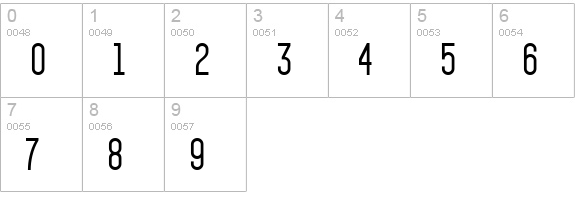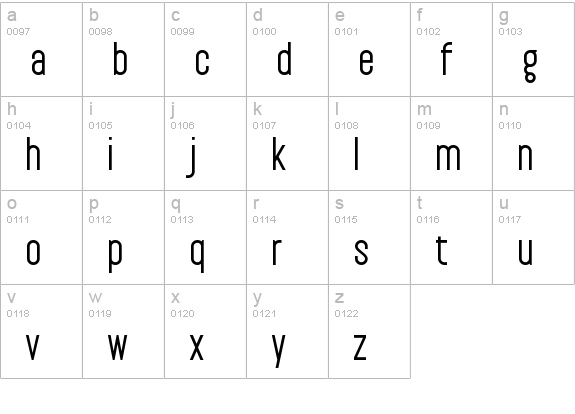
Pakt Bold Font Details
Pakt Bold is a strong, high-contrast variant in the Pakt typeface family \xE2\x80\x94 well suited to headlines, attention-grabbing titles, and strong calls-to-action.
Pakt Bold is a remarkable font that exudes confidence and strength. With its bold and powerful curves, this typeface commands attention and leaves a lasting impression. Designed with a modern and edgy aesthetic, Pakt Bold is perfect for those who want to make a statement. This font is not only visually striking, but it also offers the versatility to be used in a variety of projects. Whether you're designing a logo, creating a poster, or crafting eye-catching headlines, Pakt Bold will elevate your work to new heights. One of the best features of Pakt Bold is that it is free. That's right, this exceptional font is freely available to download at FontsMarket.com. No need to break the bank or compromise on quality – Pakt Bold offers both style and accessibility. With its clean lines and strong presence, Pakt Bold is a font that demands attention. It captures the essence of modern design and delivers it in a bold and impactful way. So why wait? Download Pakt Bold today at FontsMarket.com and unleash the power of this incredible font in your next creative endeavor.